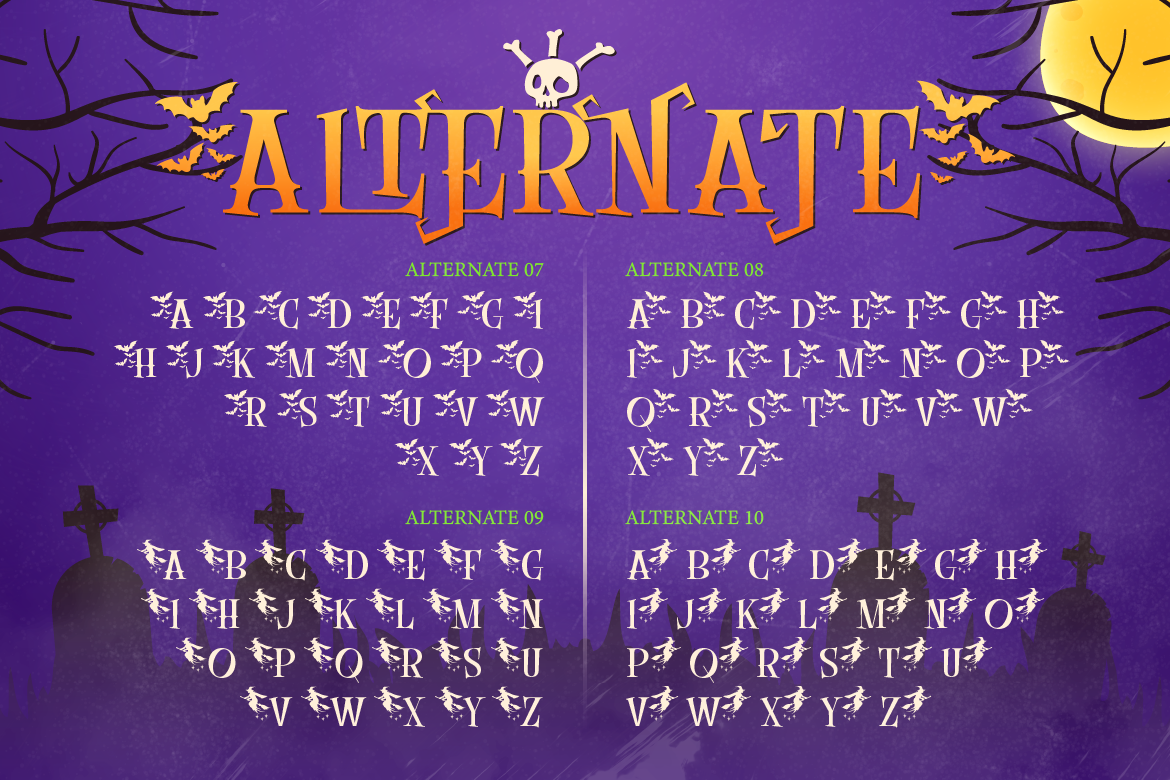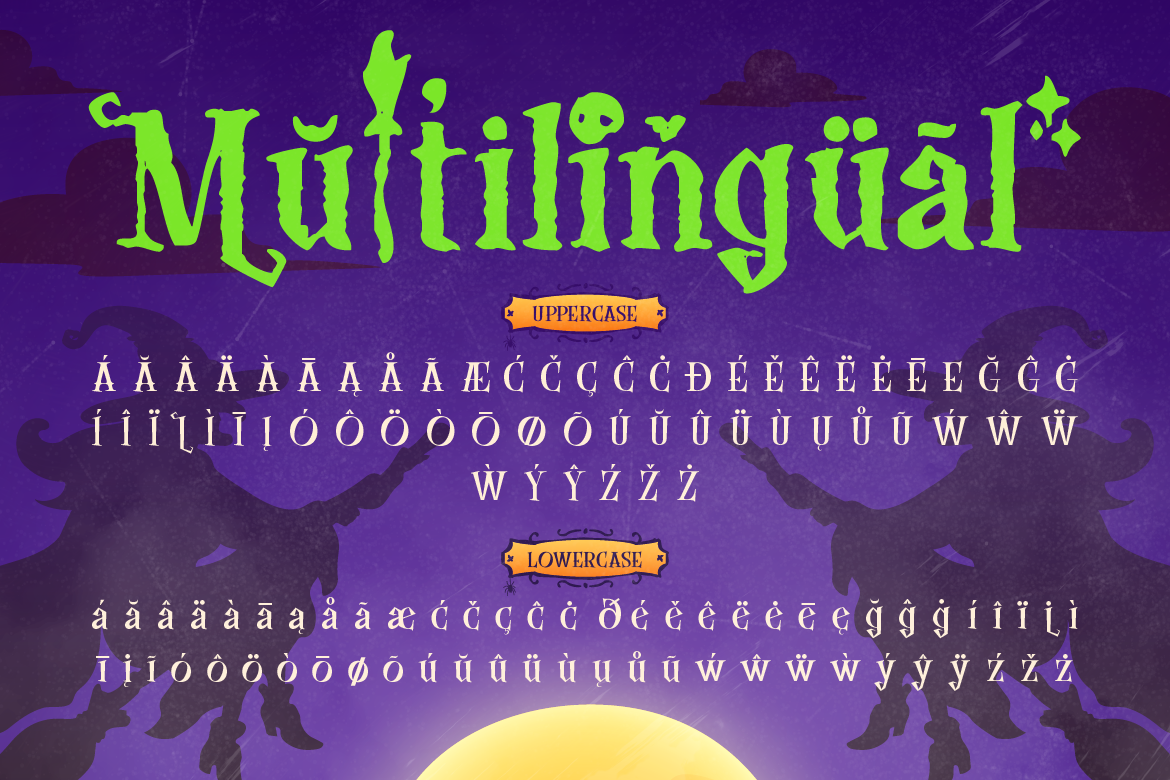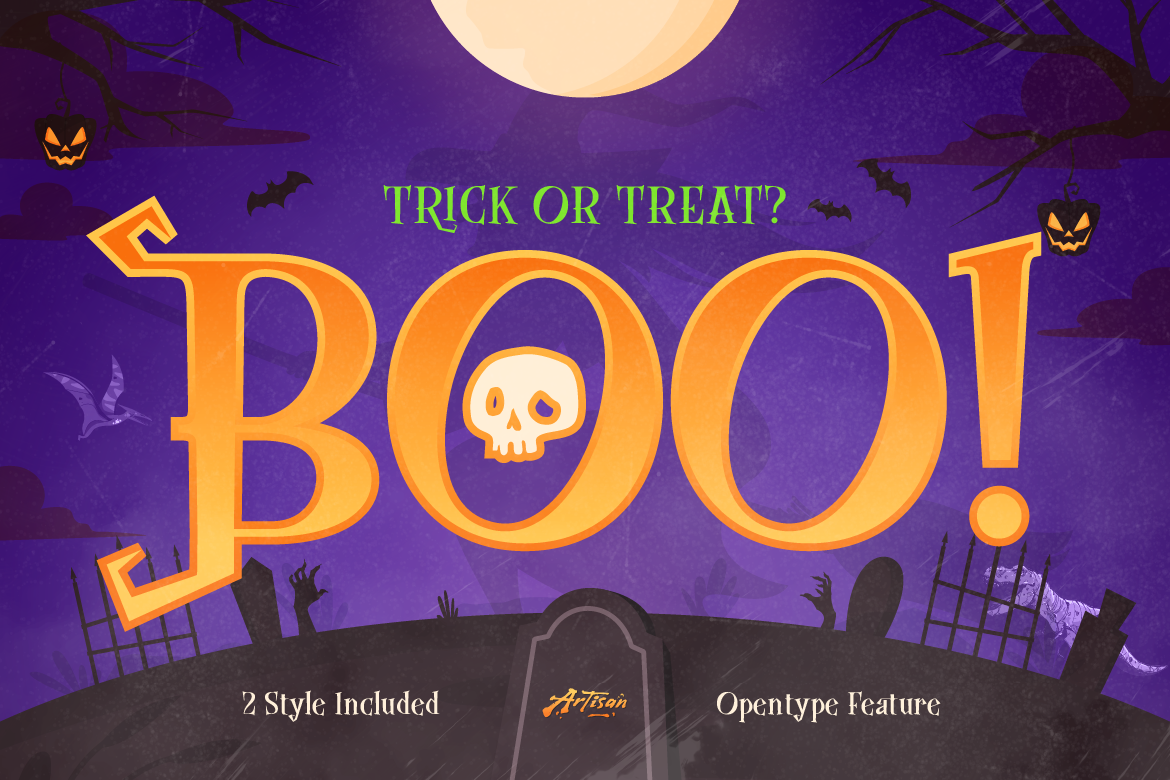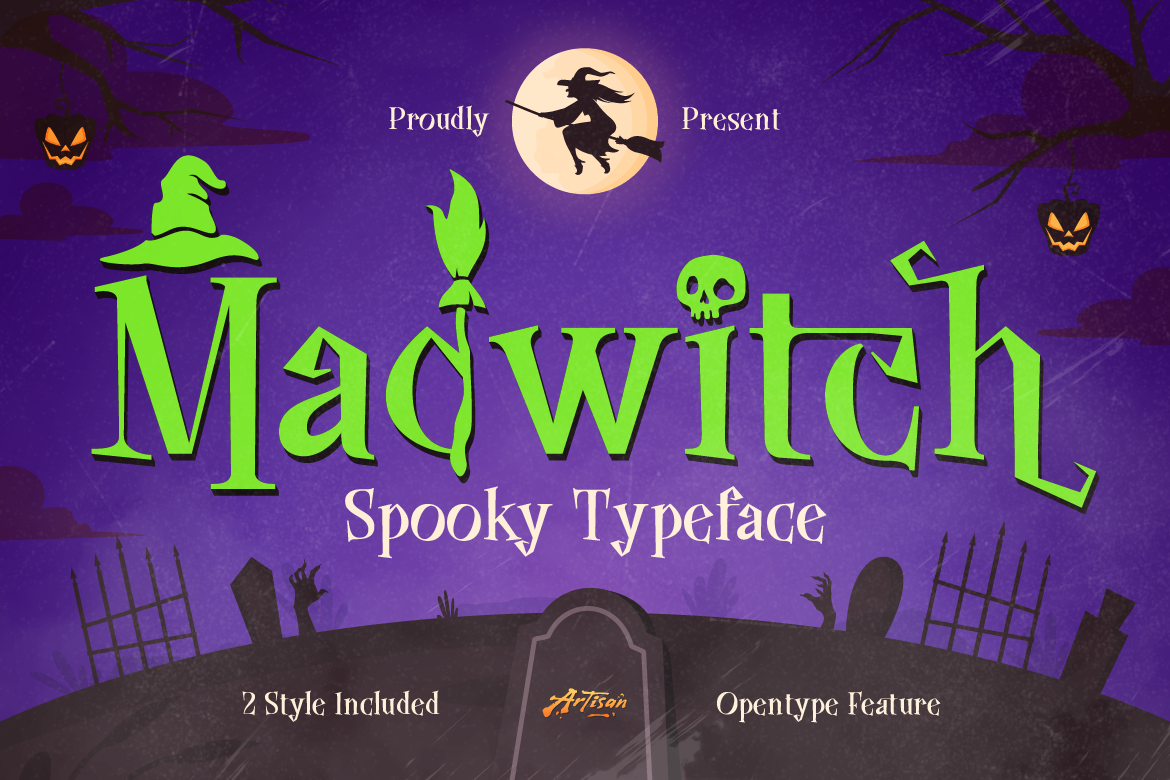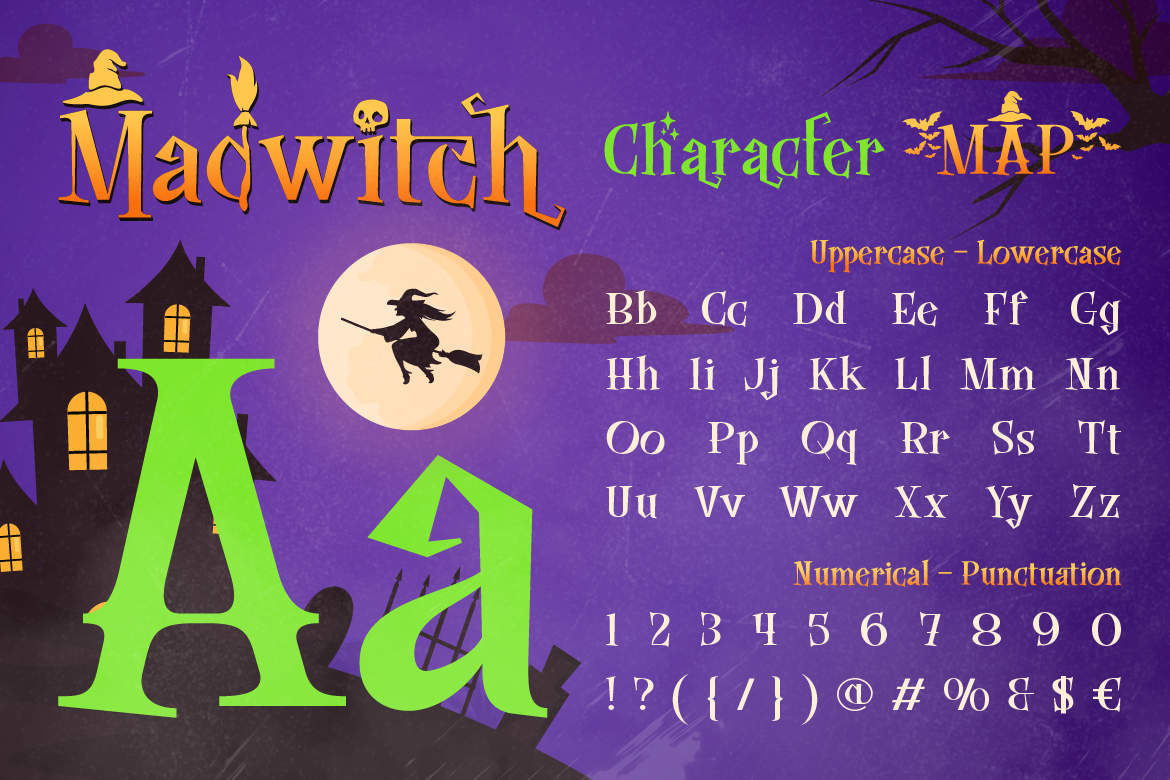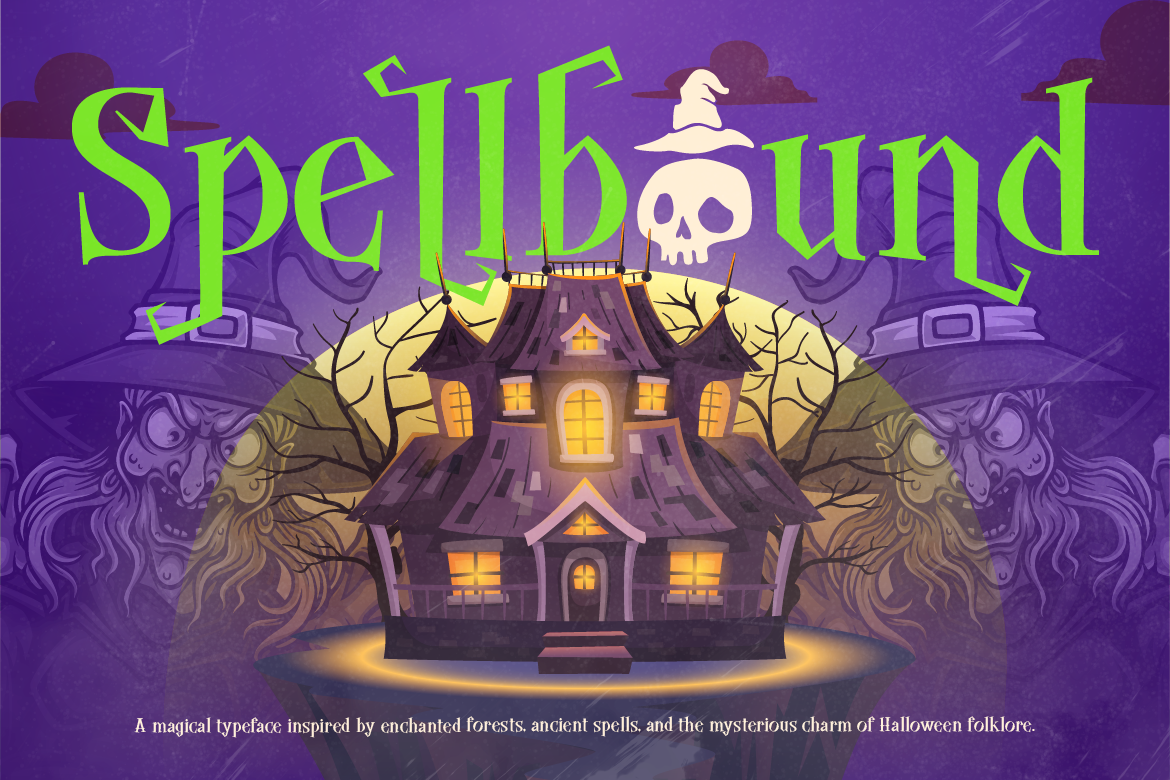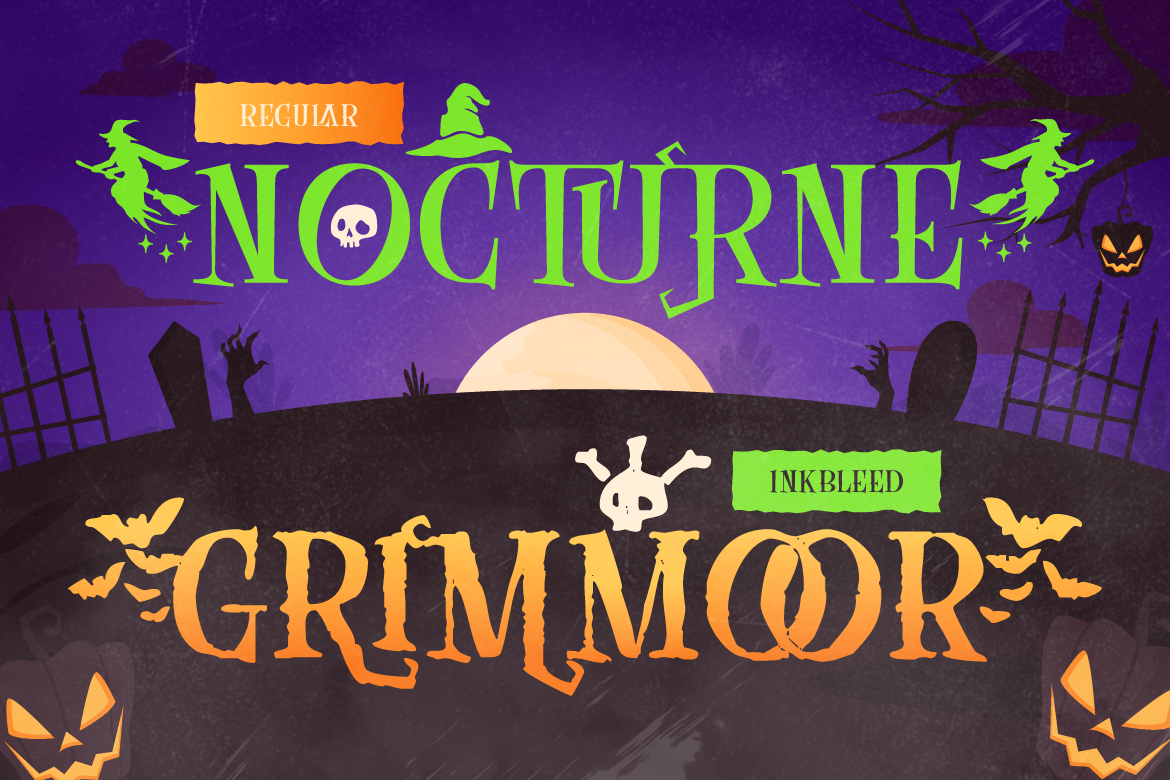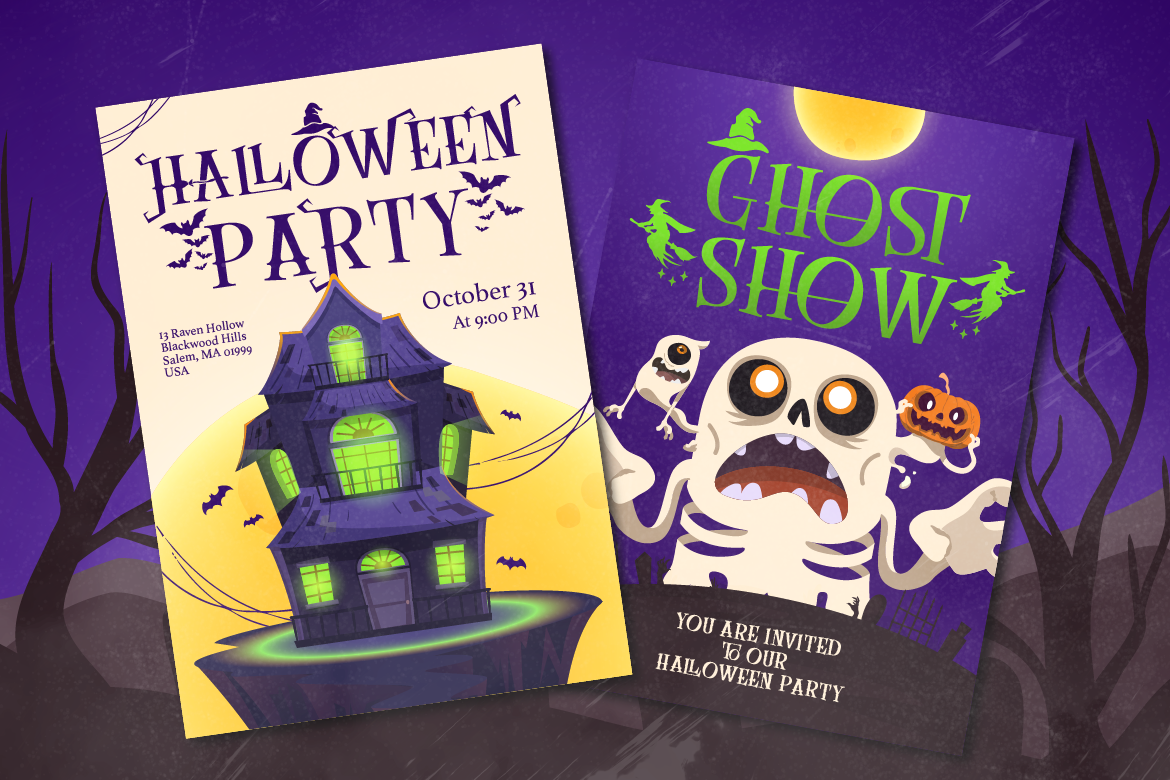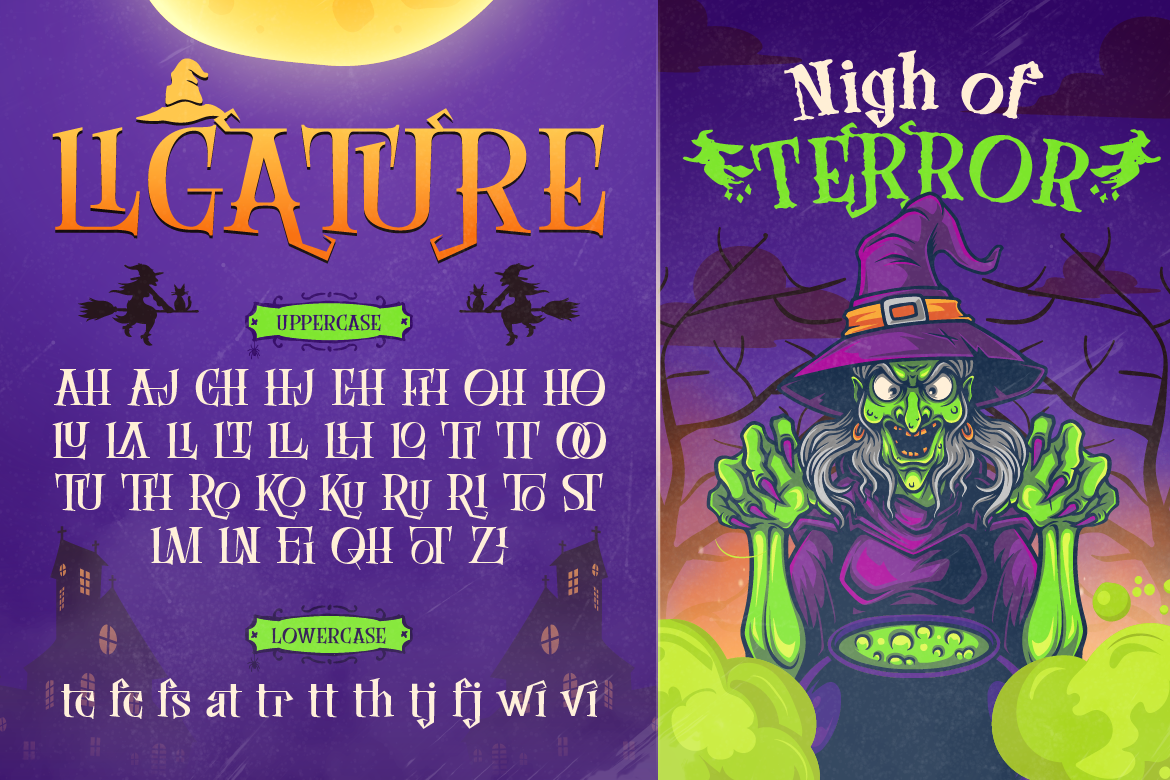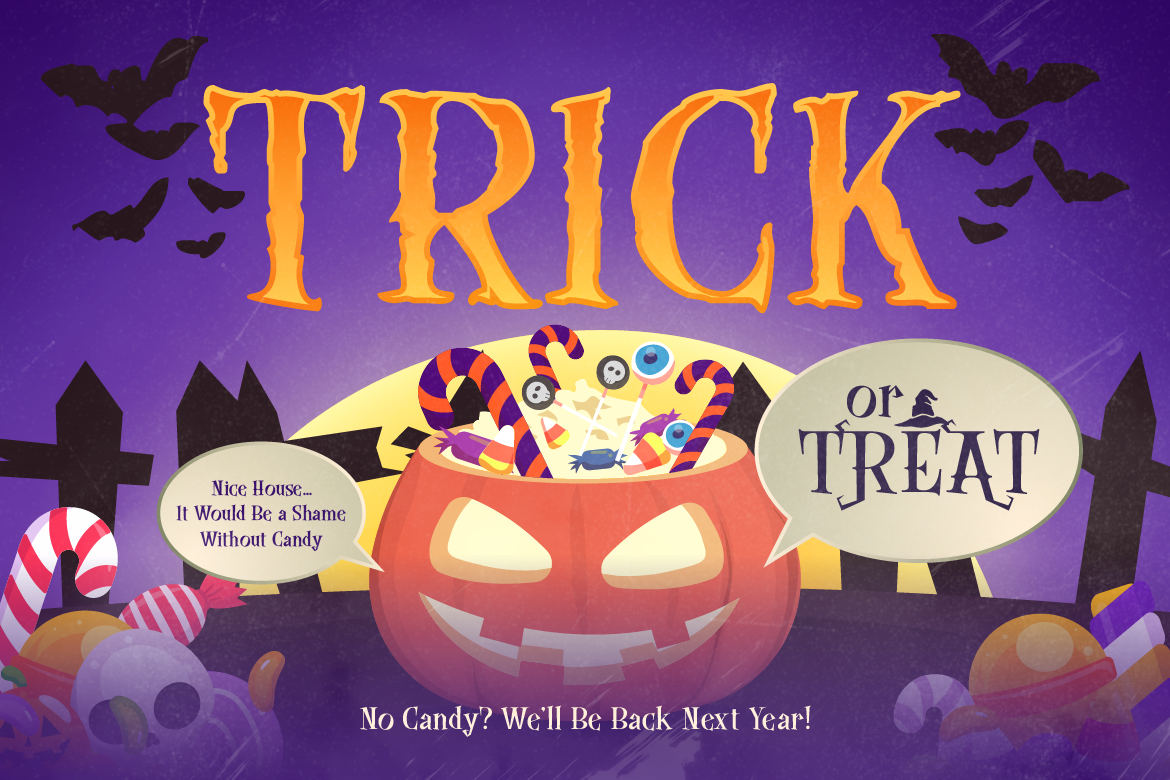
Boo! It’s that time of the year again! Madwitch is here to haunt your designs in the best way possible. With its playful hand-lettered feel and slightly crooked, dripping-candle energy, this display font brings all the witchy, spooky vibes without being too scary. Think fun spooky, not nightmare spooky.
Inspired by moonlit graveyards, crooked witch hats, and the charm of old Halloween storybooks, Madwitch captures that classic trick-or-treat nostalgia while still feeling fresh and modern. Every letter has its own quirky personality, making it feel less like a typed font and more like something scribbled by candlelight in an old spellbook.
This spooky typeface comes in 2 styles — clean Regular for that classic spooky-cute look, and Inkbleed for a more textured, worn-out grimoire vibe. Both styles include full uppercase and lowercase letters, numbers, and punctuation, plus OpenType (alternates) features so you can create even more variety without extra work.
Whether you’re designing Halloween party invites, spooky season merch, pumpkin patch signage, or witchy branding for your small business, this spooky typeface has got you covered from broomstick to black cat.